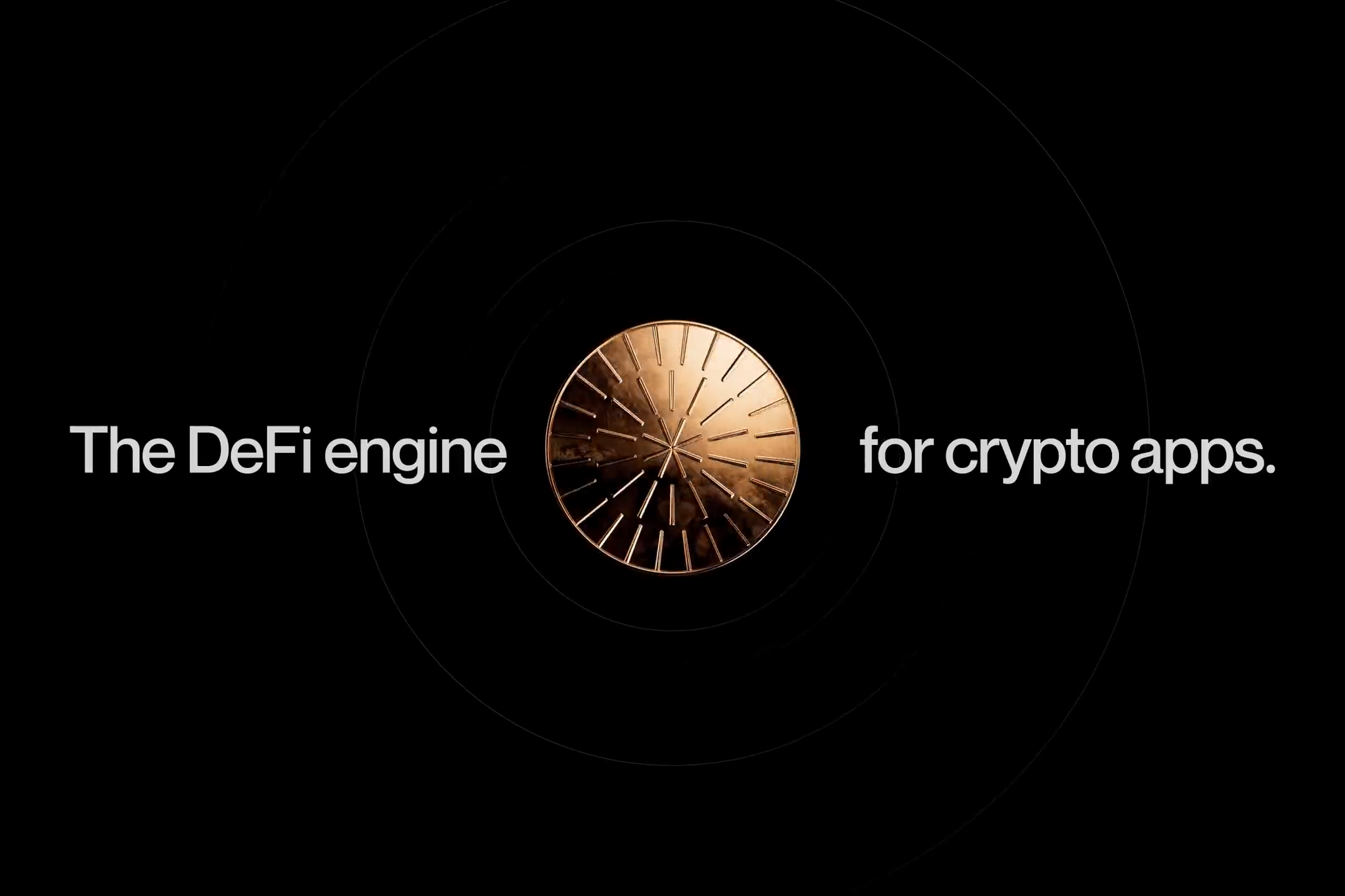
Veda is a DeFi infrastructure protocol, which means its customers are companies rather than the people whose money moves through it.
It is something users never see and only feel, despite having taken more than $16 billion in deposits and having over 250,000 customers. Zagreb-based design studio Holographik was brought in to give that invisible infrastructure a face, designing the custom symbol, a system of coins representing Veda’s different vault products, the materials from which those coins are made, and the 3D and motion work that showcases them. The studio’s focus was on creating an identity that feels distinctive, scalable and instantly recognisable across Veda’s growing ecosystem.
Crypto has already settled on a well-trodden default look: a coin, usually gold and floating at a three-quarter angle, repeated across site after site. Looking like everyone else, as Holographik saw it, is the quickest way to be forgotten. Veda, however, made that even harder – there’s no product to picture, just the infrastructure other apps are built on. As a result, Holographik needed to make something that felt familiar enough for a company to trust it with real money, yet distinct enough that nobody would confuse it with the dozen coins launched that morning. Too safe and the brand would disappear into the category; too clever and it forfeits the credibility needed for a financial brand to succeed.
Before designing anything, Holographik sat with the name. Veda is Sanskrit for knowledge, which points backwards to the way ancient civilisations held on to what they valued. They made objects, such as seals, relics, inscribed tablets and coins, which are built to last and to carry meaning over centuries. An ancient coin was a record as much as it was money, a mark of who stood behind it, trusted because someone had bothered to make it permanent. Stripped of the technology, crypto is a way to store value and trust in a form that outlives the moment. “Originally, we wanted to go with something more tied to the history,” Designer Lazar Glumac tells us, the material choice following from artefacts valued long ago. “It was a bonus that they are still considered valuable metals and that they are considered as stores of value even today.”
Laying the two worlds over each other produced a coin, the visualisation that the category is already known for, treated as an artefact. Keeping it handed the studio familiarity for free. The shape is understood instantly and already stands for money. But familiarity alone does not make a brand memorable, so rather than just drawing a coin, Holographik decided to draw on one
On that surface, the studio built a language of lines. Each composition maps the infrastructure behind a specific Veda vault, such as its architecture, mechanics and the way value moves through it, so a coin is a portrait of the system sitting underneath it. Glumac puts that down to “focusing on the movement of funds, of the routes and connections between things, instead of the vault parts and destinations,” which is what stops compositions from feeling like diagrams. “Represent the nature of the vault. Reduce to simplicity. Adjust coin shape to match the abstract form. Apply one of three existing materials to get colour and texture. Introduce light,” Glumac details, listing the rules that govern how all the coins are made.
The coins come in gold, silver or copper, signalling value before anyone reads a word. Purple is a main accent colour, used mostly for CTAs and smaller details. “We built a complementary palette that worked with the purple first, but still didn’t clash with colours used for materials,” Glumac reveals. “The idea was to build a supportive, more neutral palette that would let the metal and purple stand out and take the lead.”
DeFi lives in dashboards and spreadsheets, in numbers that never quite feel like anything, so the coins were given weight, grain and the specific way light falls across brushed metal. References included real-world metals and finishes, and how Apple’s brushed aluminium feels. “That’s the way we approached building something you can almost literally hold,” Glumac details. Most of the work was made in Blender by the studio’s 3D designers, with the clean 2D schematics prepared in Figma, and “exploration for materials and light was also partially done using AI, mainly Midjourney, ChatGPT and Vizcom,” Glumac notes.
The custom symbol forms an ownable letter ‘V’ while pointing upward, reflecting Veda’s focus on optimisation and performance, and it takes on some of the coins’ attributes, material and colour among them. “The simplistic principles and geometry of the symbol ensure it remains legible even when surrounded by visually stronger elements,” Glumac notes.
Type across the system is Pangram Pangram’s contemporary sans serif Neue Montreal. “It has enough character to feel distinctive, while staying neutral enough to let the rest of the system take the lead,” Glumac continues. “Most importantly, it doesn’t lean too far into the typical technical aesthetic often associated with fintech.”